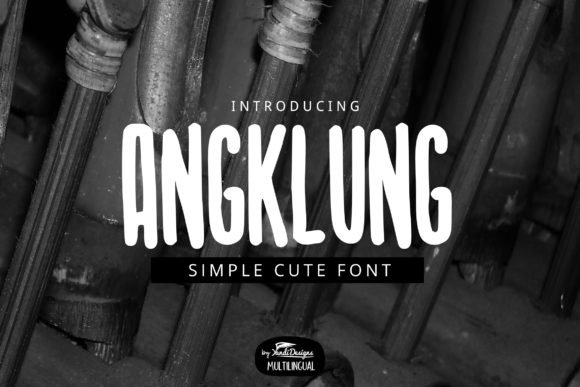
The Birth of a Design Icon: Angklung Font
Have you ever been stuck in a creative rut, staring at a blank page or screen, waiting for inspiration to strike? That’s where I was a few years ago, struggling to find the perfect font for a branding project. It wasn’t until I stumbled upon the Angklung Font that everything clicked into place. This simple yet striking sans serif font has become a staple in my design toolkit, and I’m excited to share its story with you.
Angklung Font is a tall, elegant lettered font designed to make a lasting impression. Its clean lines and minimalist aesthetic make it the perfect choice for creating eye-catching logos, branding, and quotes. Whether you’re a seasoned designer or just starting out, this versatile font is sure to become a valuable addition to your design arsenal.
Angklung Font Key Features
- Unique Characteristics: Angklung Font is inspired by the traditional Indonesian instrument, Angklung, and features a unique blend of traditional and modern design elements.
Designer Review: Angklung Font
At first glance, Angklung Font catches the eye with its unique and bold character. ✨ The font’s inspiration from the traditional Indonesian instrument of the same name is evident, and its design is both modern and nostalgic. ✨ The font’s lines are clean, and the spacing is well-balanced, making it easy to read.
One of the standout features of Angklung Font is its versatility. ✨ It can be used for a variety of projects, from branding to typography, and its unique style will surely make your work stand out. ✨ However, I do have some concerns about its limitations.
- ⚠️ The font may be too bold for some applications, and its unique style may not be suitable for all types of projects.
- ⚠️ The font’s boldness may also make it difficult to read in smaller font sizes.
Overall, I think Angklung Font is a great addition to any designer’s toolkit. ✨ While it may have some limitations, its unique style and versatility make it a valuable asset for any project. ✨ With some careful consideration of its use, I think Angklung Font can be a real game-changer for designers looking to add some flair to their work.